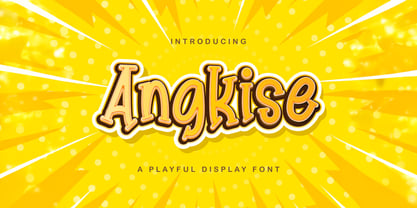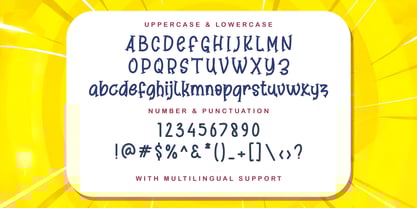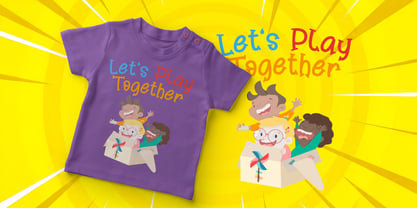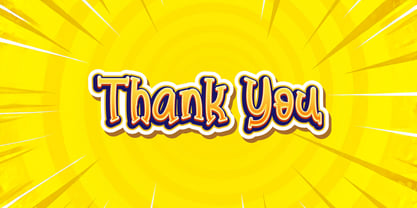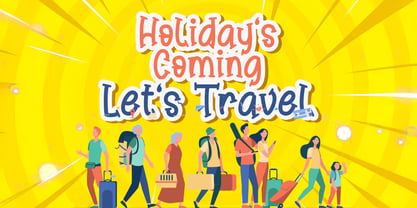
The Angkise Font Family was designed by Virgiawan Listanto and published by Stringlabs Creative Studio. Angkise contains 1 styles. More about this family
Angkise is a cheerful and playful display font that brings joy and personality to your designs! With its bouncy letterforms, quirky shapes, and hand-drawn charm, Angkise is perfect for adding a fun and friendly vibe to any creative project.
Designers: Virgiawan Listanto
Foundry: Stringlabs Creative Studio